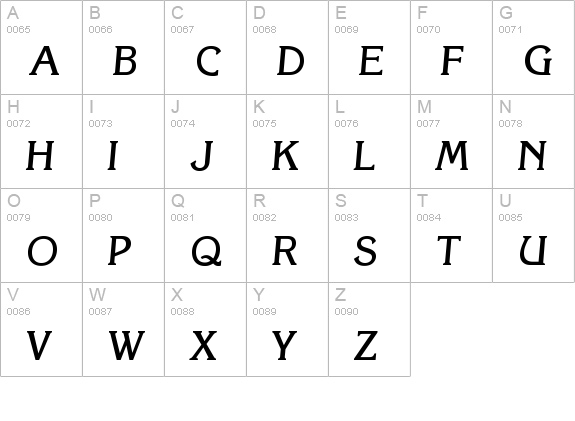
Korinth-MediumIta is a sleek and elegant serif font that exudes sophistication and style. Its medium weight strikes the perfect balance between classic and modern, making it ideal for a wide range of design projects. The italicized version of Korinth adds a touch of flair and personality to any text, enhancing readability and visual appeal. This versatile font is perfect for editorial design, branding, packaging, and more. Whether you're creating a professional document or a stylish logo, Korinth-MediumIta is sure to make a statement. And the best part? Korinth-MediumIta is available for free download at FontsMarket.com. Take advantage of this amazing offer and elevate your designs with this exquisite typeface today!